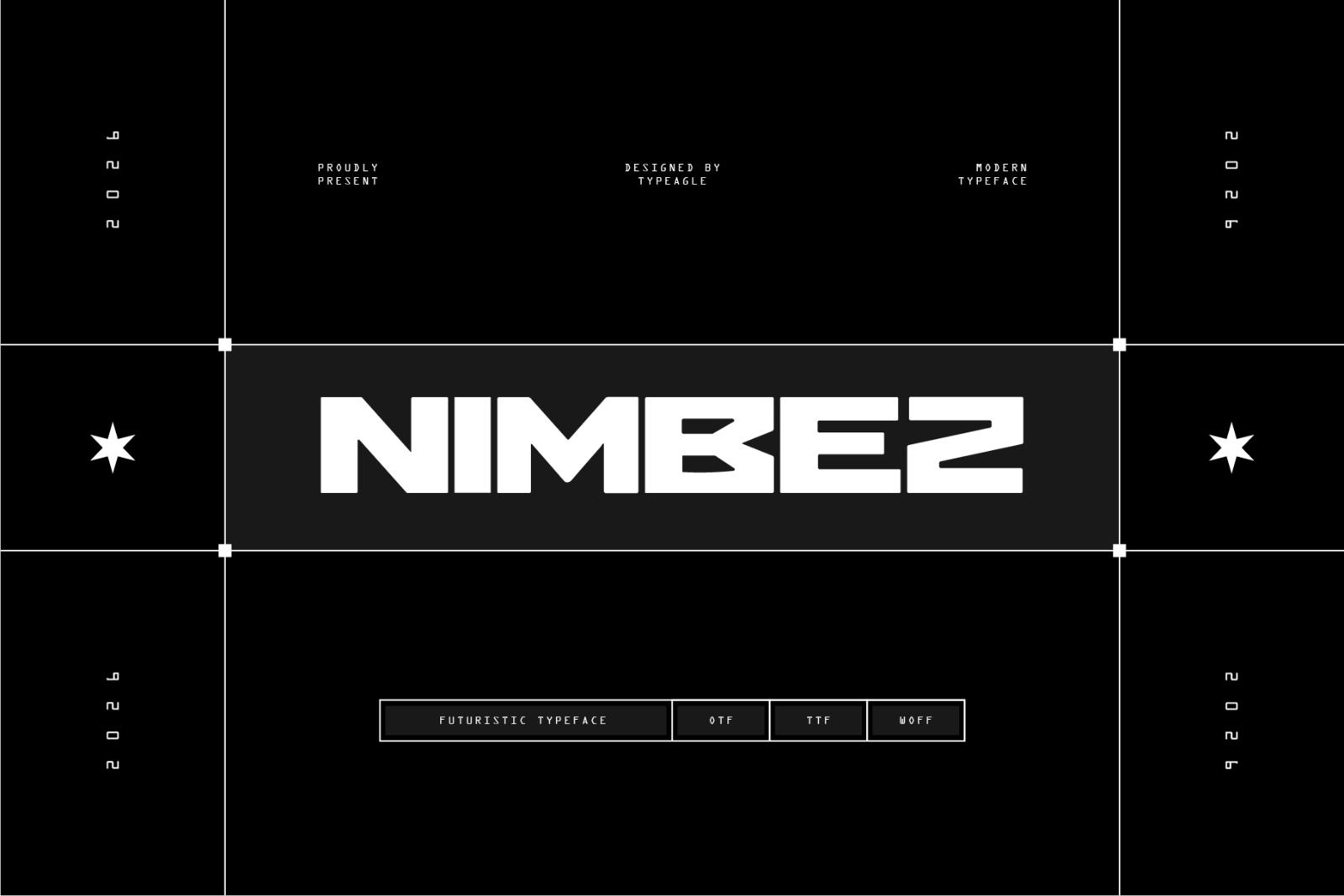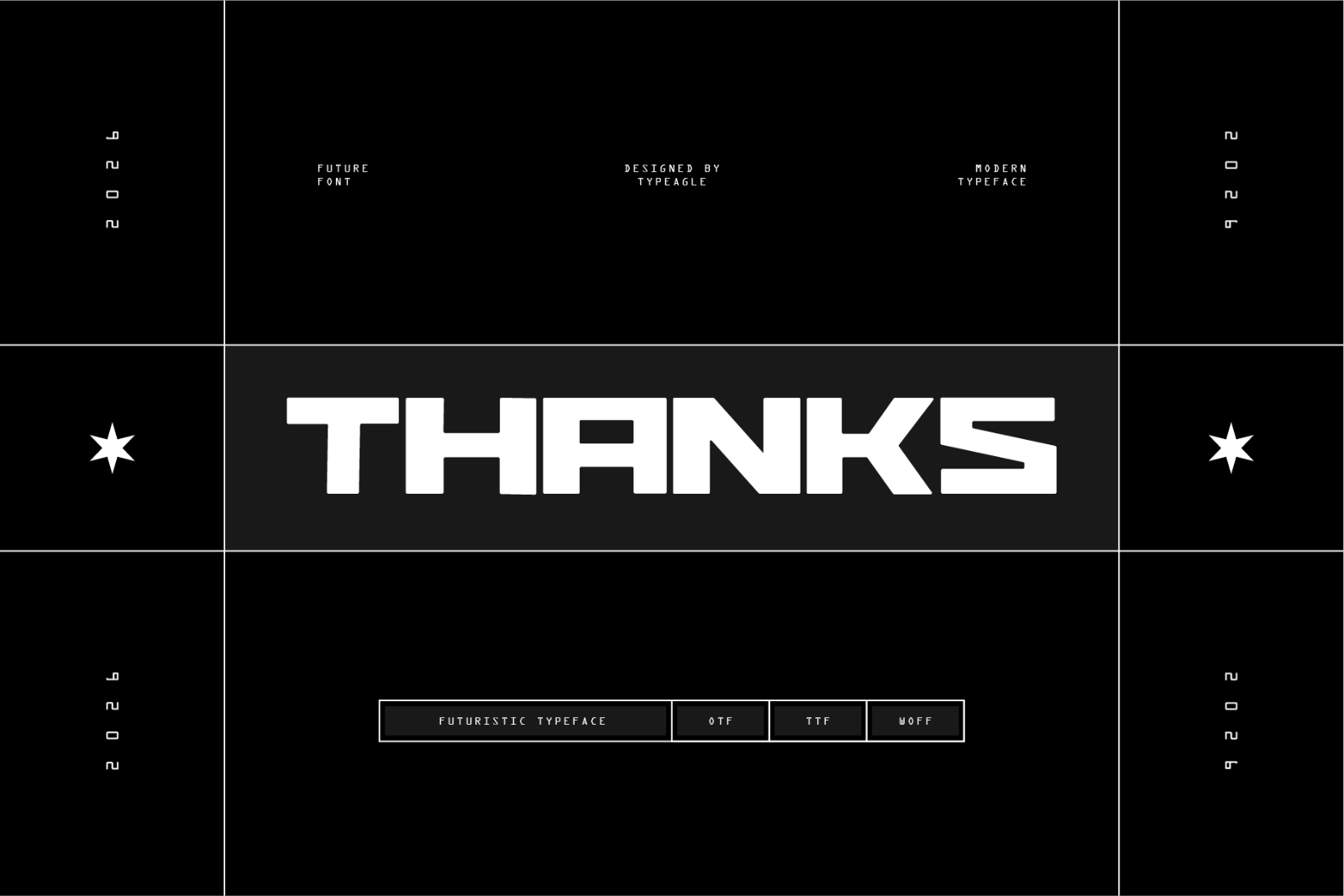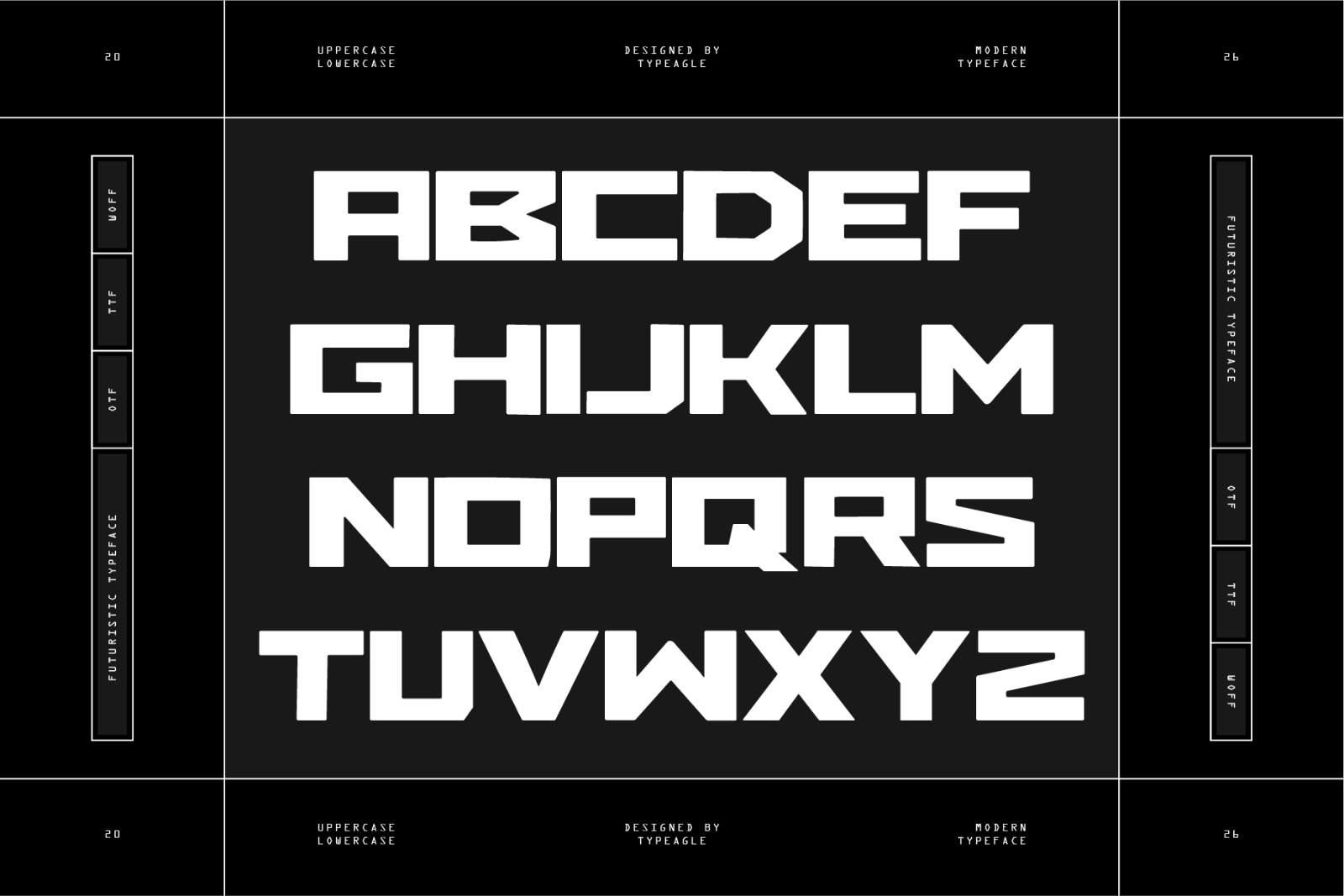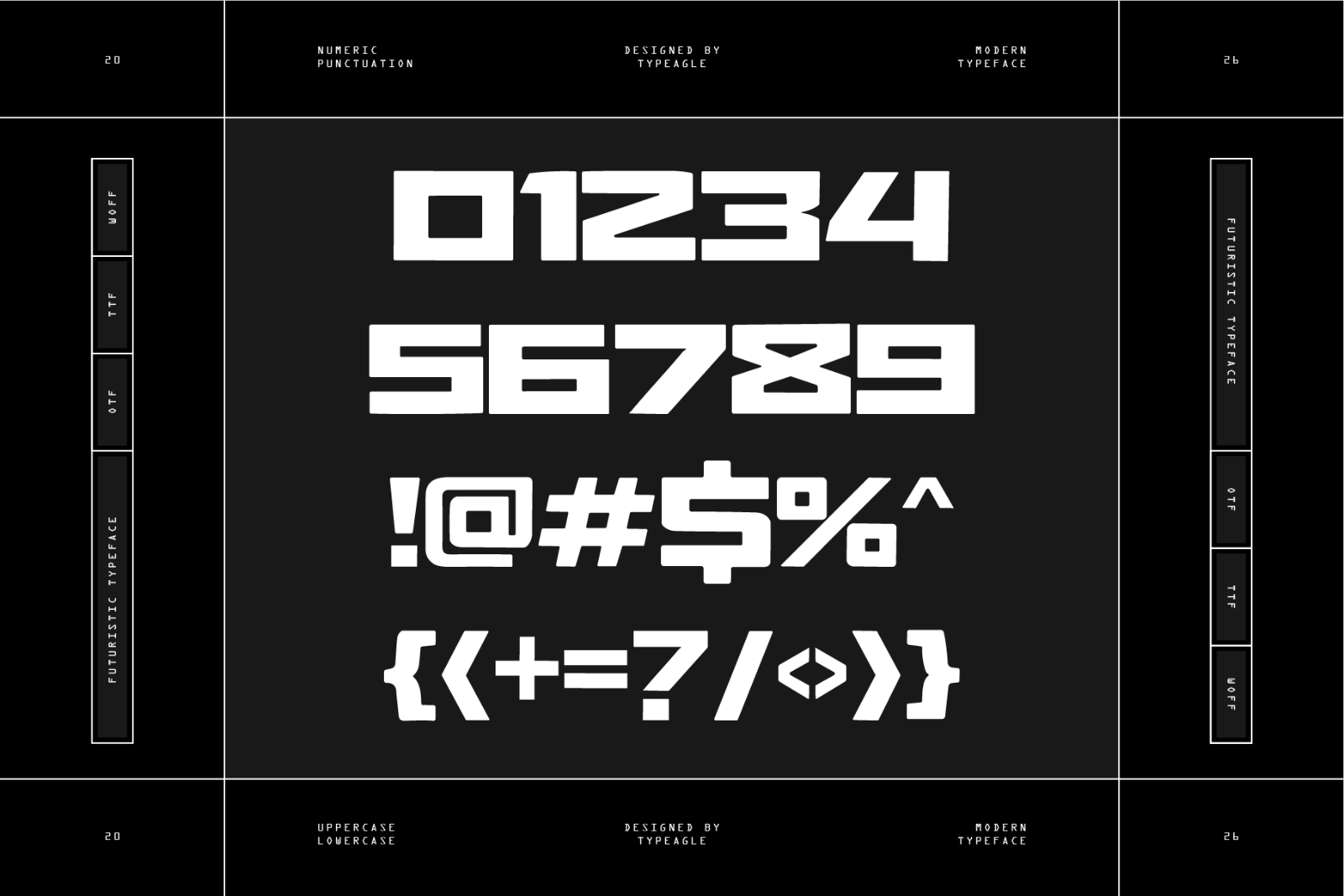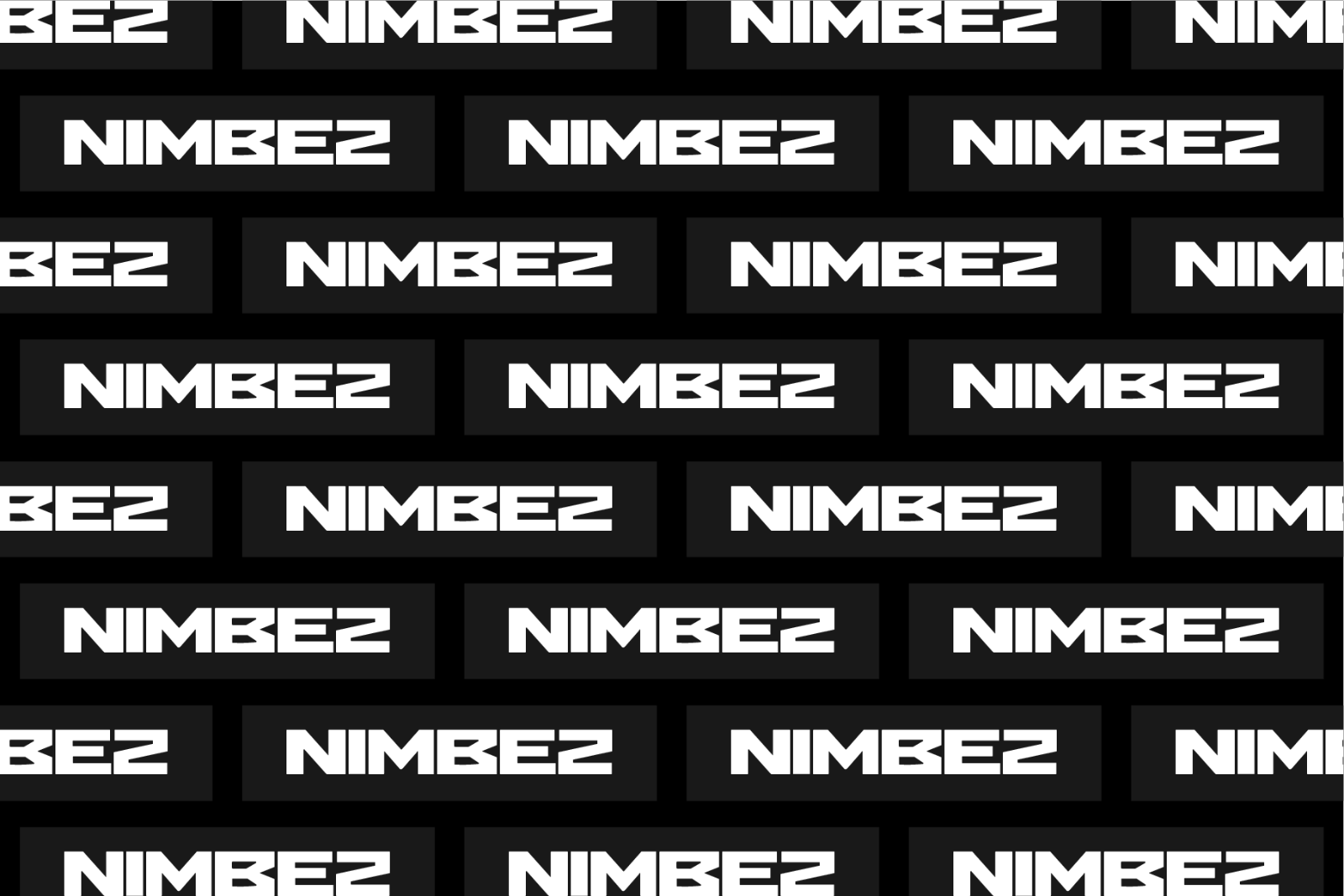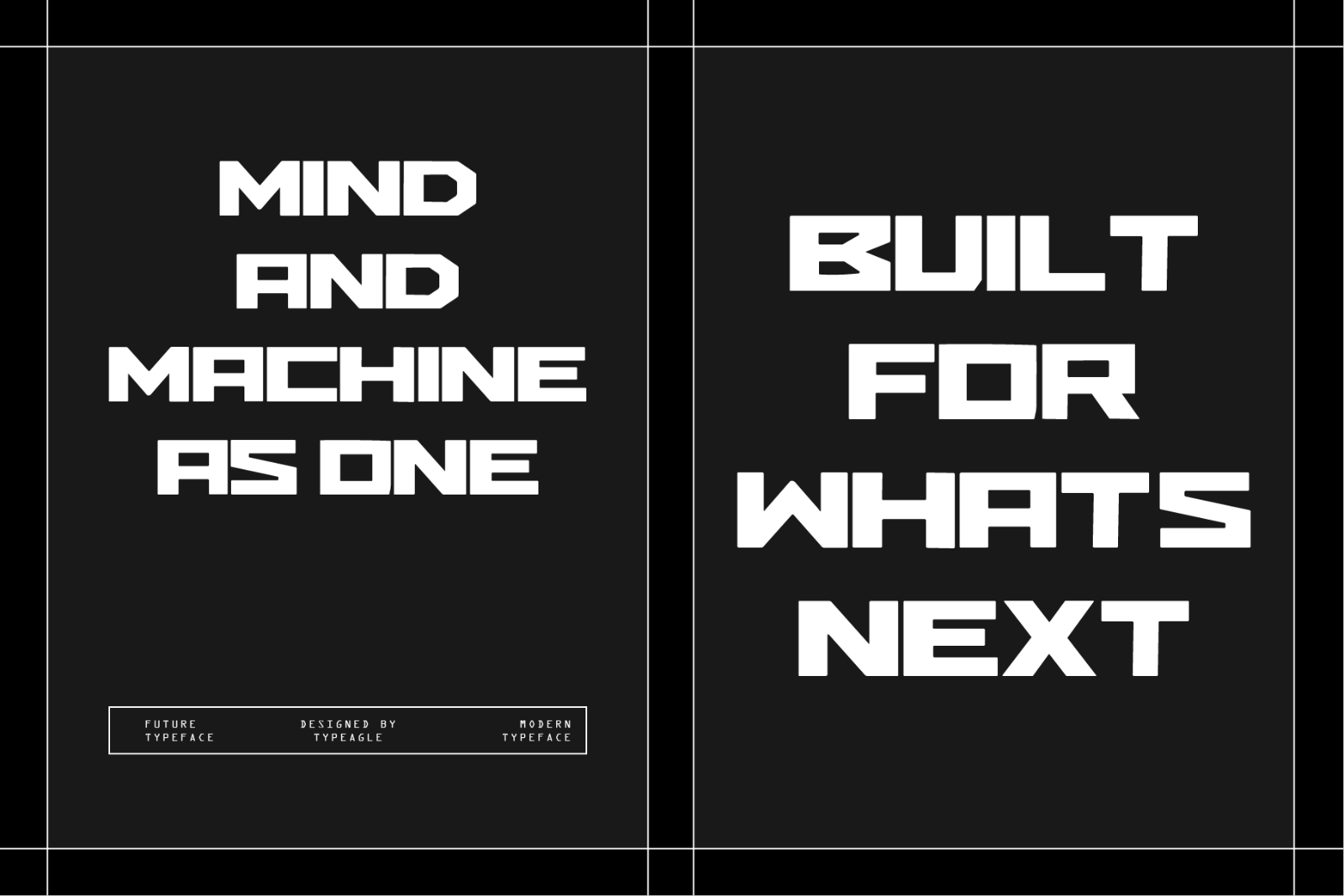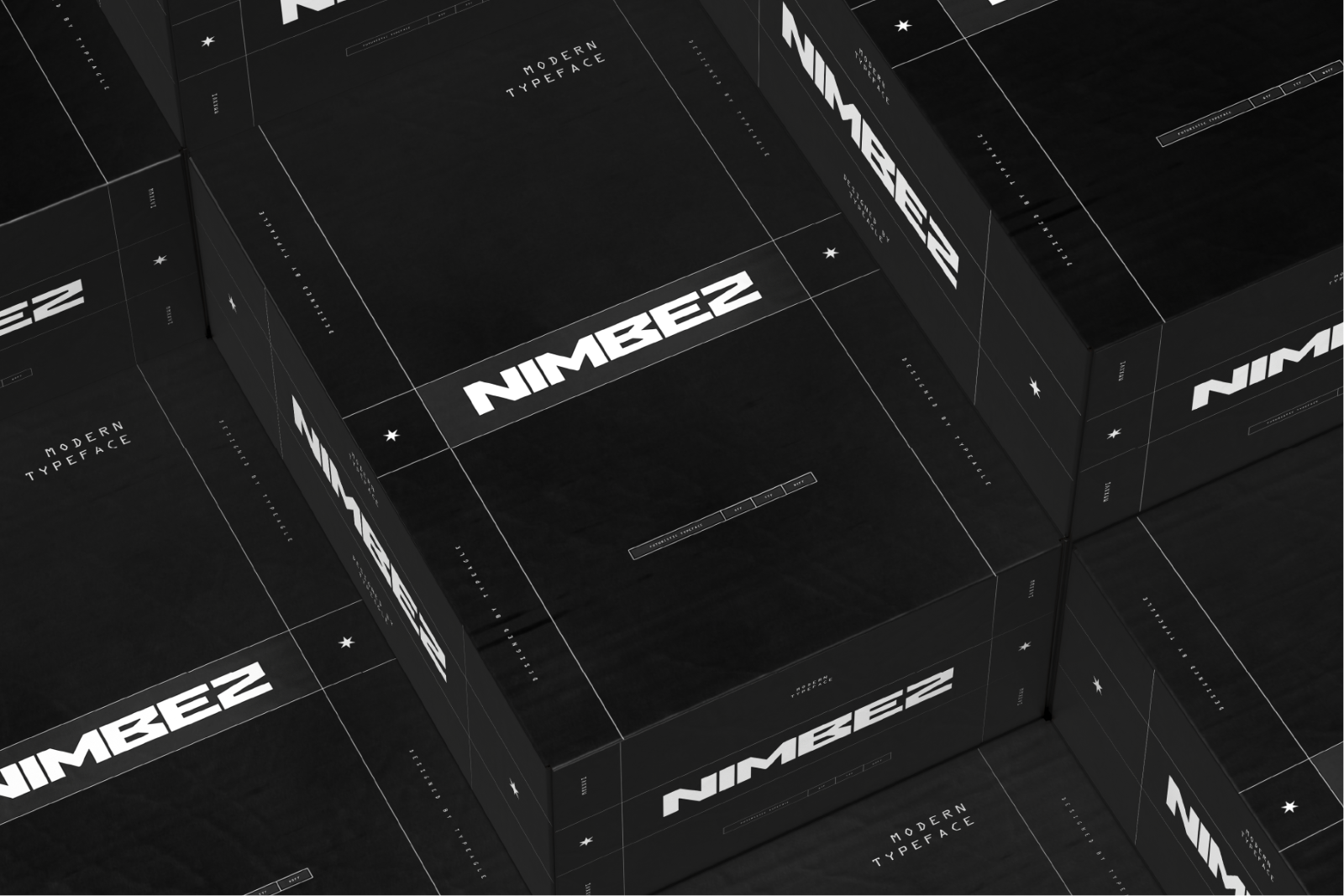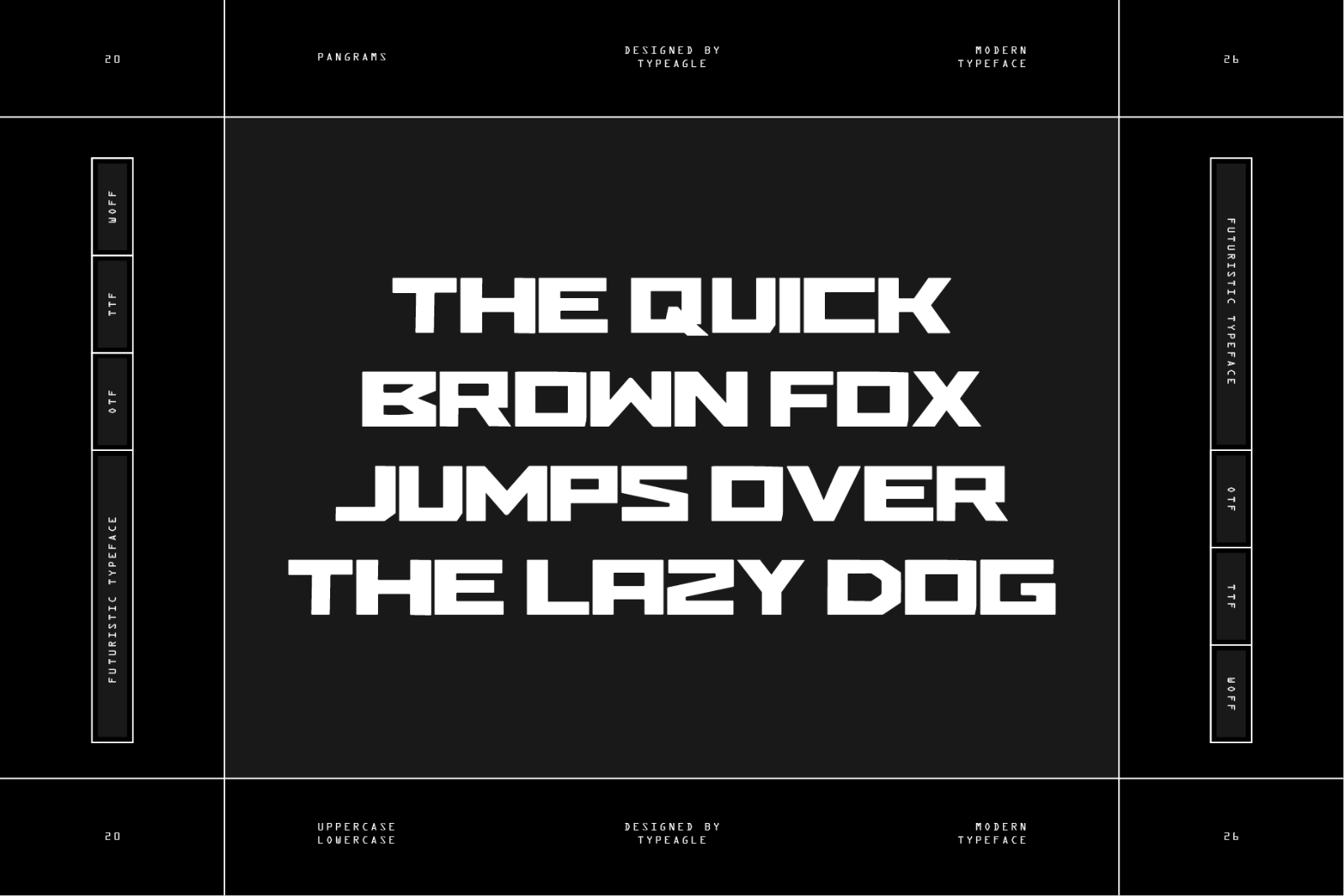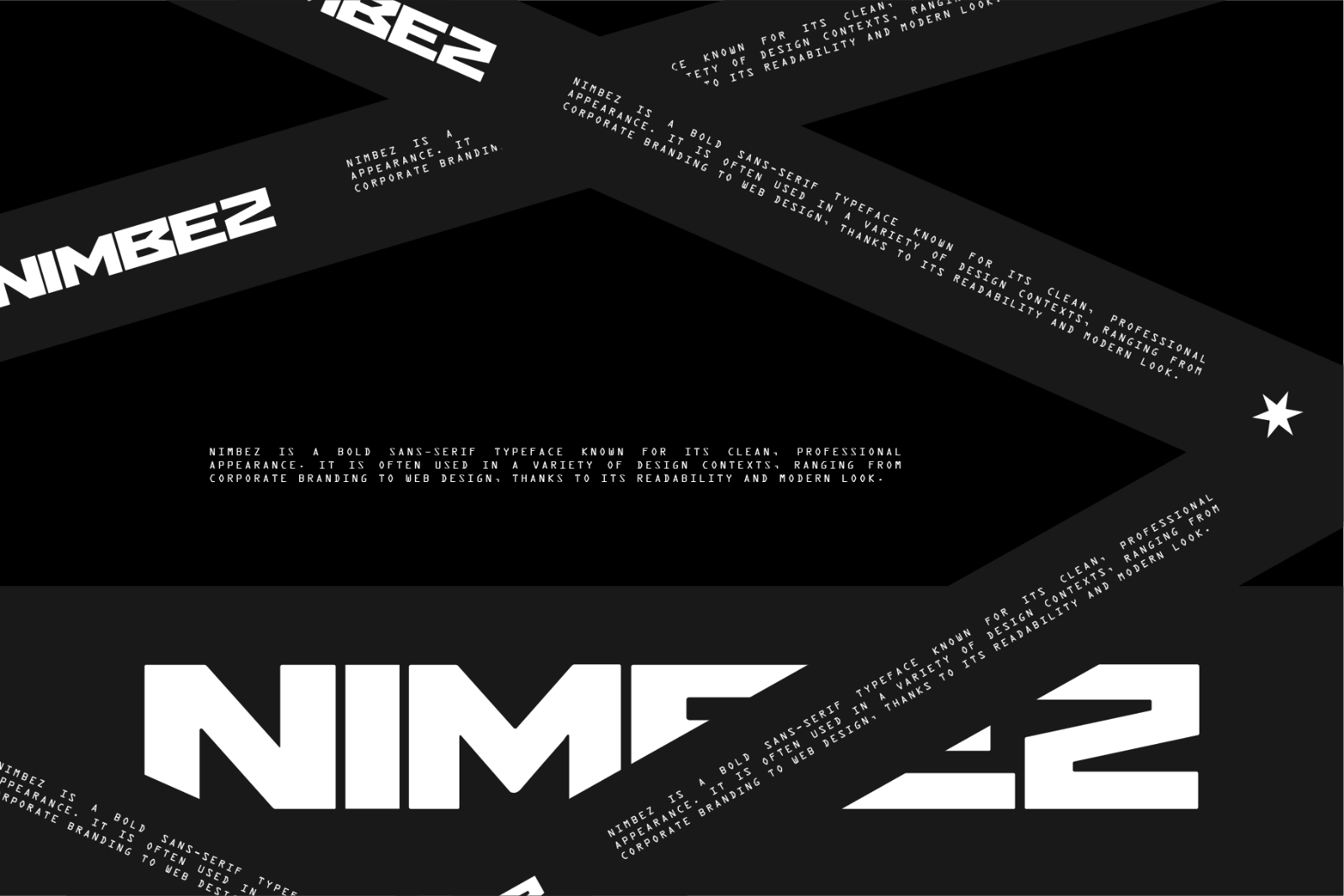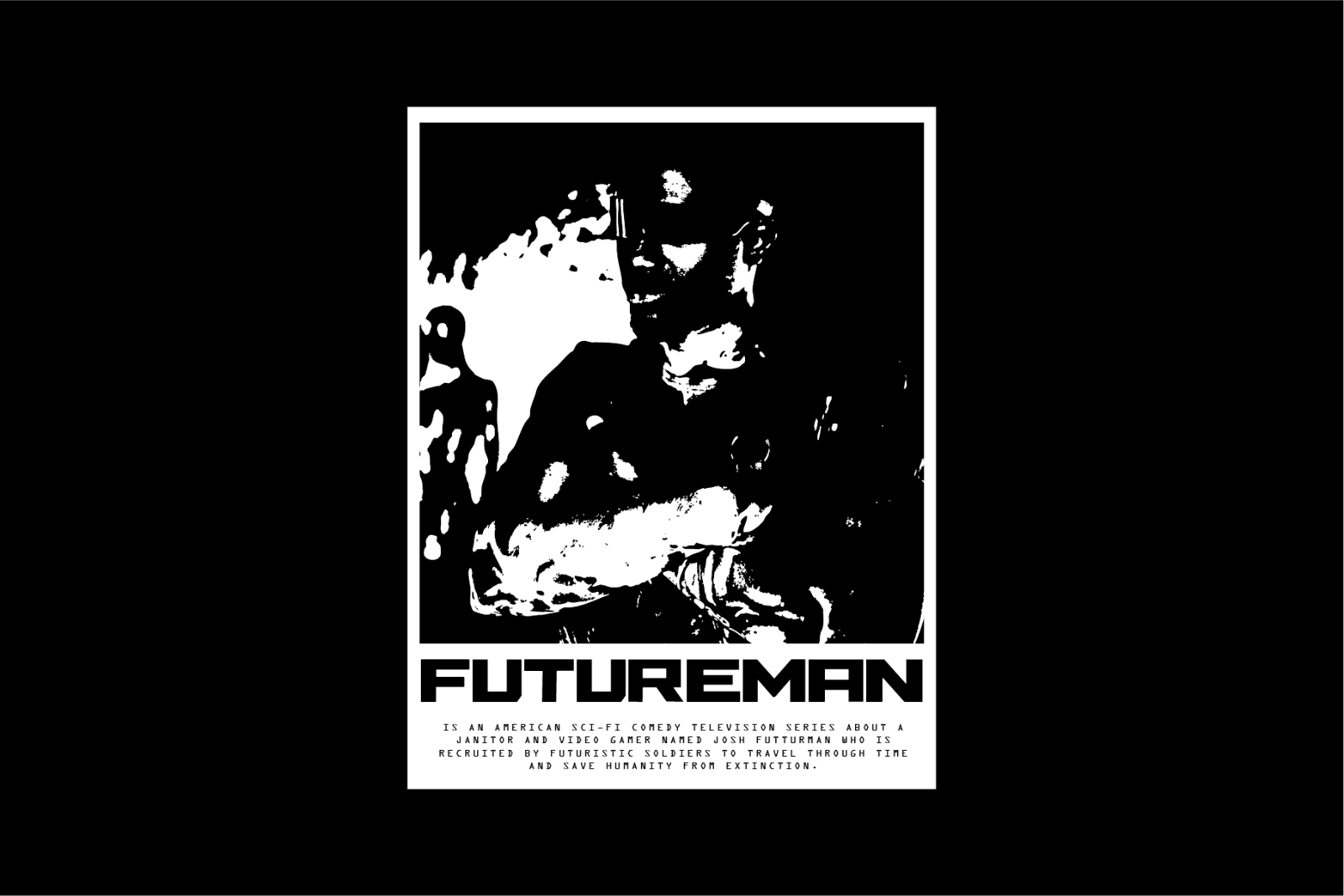
Nimbez is a bold sans-serif typeface known for its clean, professional appearance. It is often used in a variety of design contexts, ranging from corporate branding to web design, thanks to its readability and modern look.